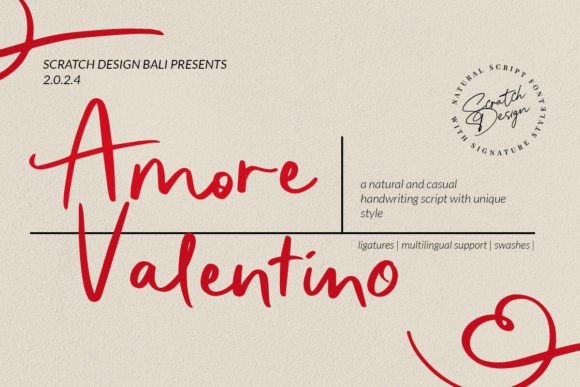
Love at First Sight: Introducing Amore Valentino Font
As designers, we’ve all been there – staring at a blank page, trying to come up with the perfect idea to capture the essence of a project. It’s a moment of pure creativity, when the possibilities seem endless and the excitement is palpable. And then, it hits you – the perfect font that brings your vision to life. For me, that moment came when I discovered the Amore Valentino Font.
This beautiful script font is more than just a pretty face – it’s a versatile tool that can add a touch of elegance and sophistication to any design. With its natural and casual style, Amore Valentino Font is perfect for wedding invitations, branding, and social media graphics. Its unique features, including elegant ligatures and stylish swashes, make it a valuable addition to any designer’s toolkit.
Whether you’re a seasoned pro or just starting out, Amore Valentino Font is sure to bring a smile to your face and a touch of magic to your designs.
Amore Valentino Font Key Features
- Font Family: Amore Valentino Font is a script font designed by Valentino Font.
- Unique Characteristics: Amore Valentino Font features a romantic, elegant, and whimsical design, perfect for creating a sense of luxury and sophistication.
Amore Valentino Font Review
Overall, I’d say the Amore Valentino Font is a unique and charming addition to any design project. ✨ It’s a beautiful, elegant script font that’s perfect for creating a romantic or whimsical atmosphere.
- ✨ The fluid, cursive lines create a sense of movement and energy.
- ✨ The font is highly legible, even at smaller sizes.
- ✨ The Amore Valentino Font is fully Unicode-supported, making it a great choice for multilingual designs.
- ⚠️ The font may not be suitable for formal or professional designs, as it’s a bit too whimsical.
- ⚠️ The font’s weight and style may not be as consistent across all platforms.
- ⚠️ Some users may find the font’s lines a bit too thin or delicate.
Overall, I think the Amore Valentino Font is a great choice for designers who want to add a touch of romance or whimsy to their projects. While it may have some limitations, it’s a beautiful and unique font that’s sure to impress.
For optimal results, use Amore Valentino Font in designs that require a elegant, romantic, and vintage feel. This font is ideal for:
– Fine dining menus
– Luxury branding and packaging
– Vintage-inspired advertising